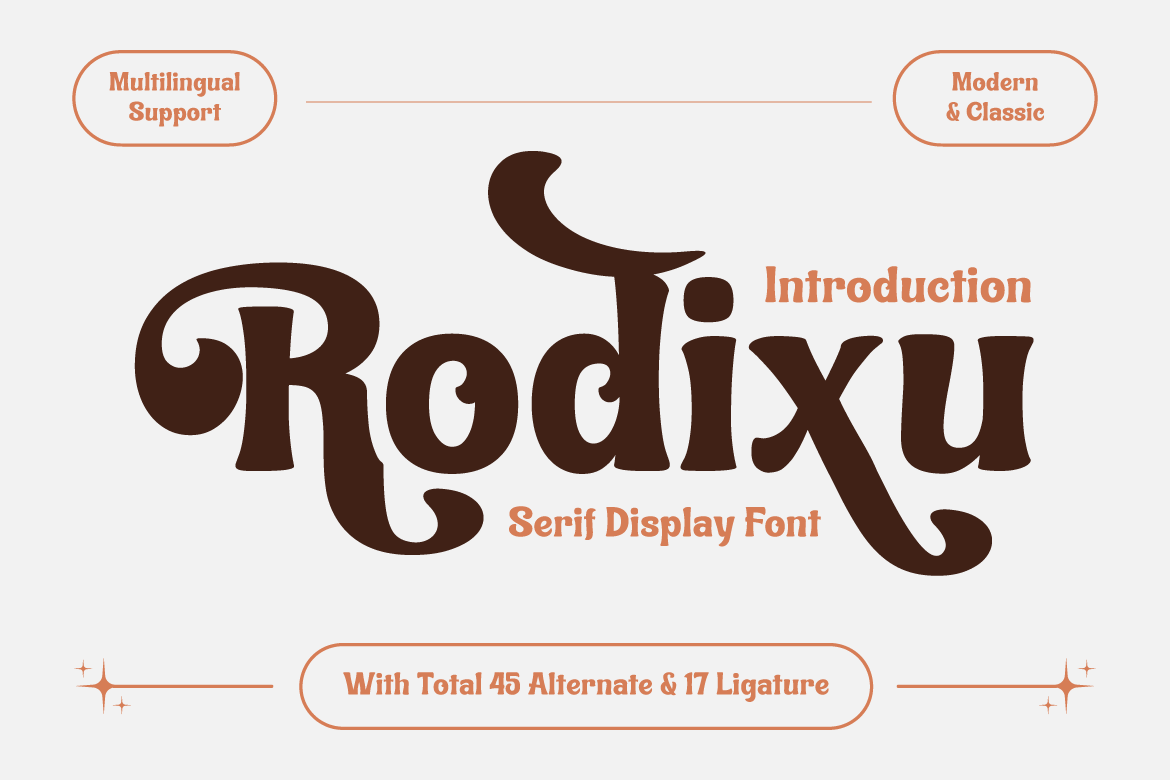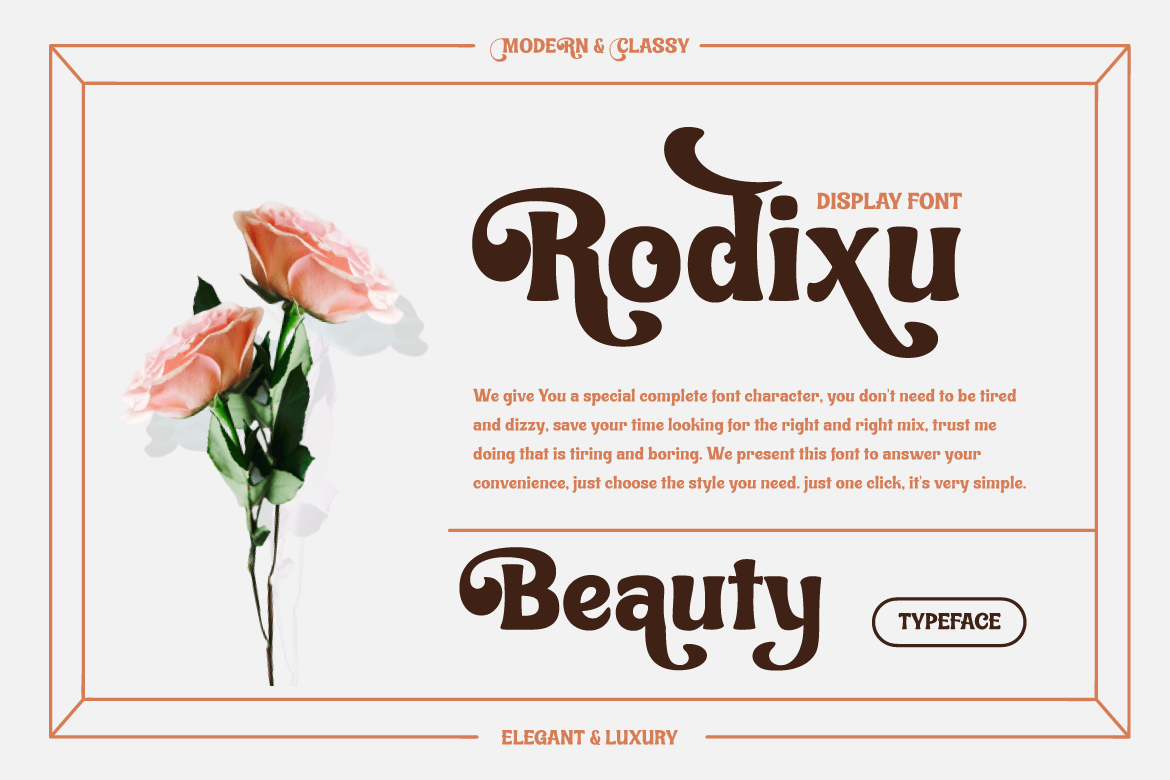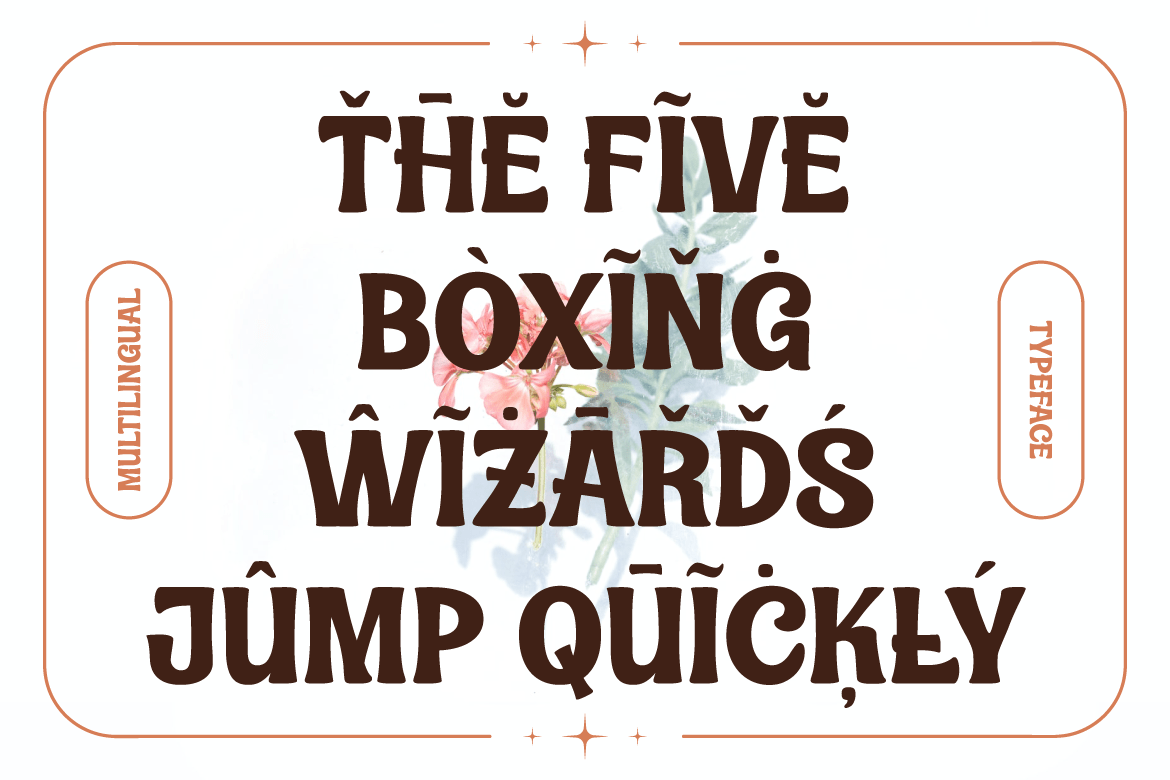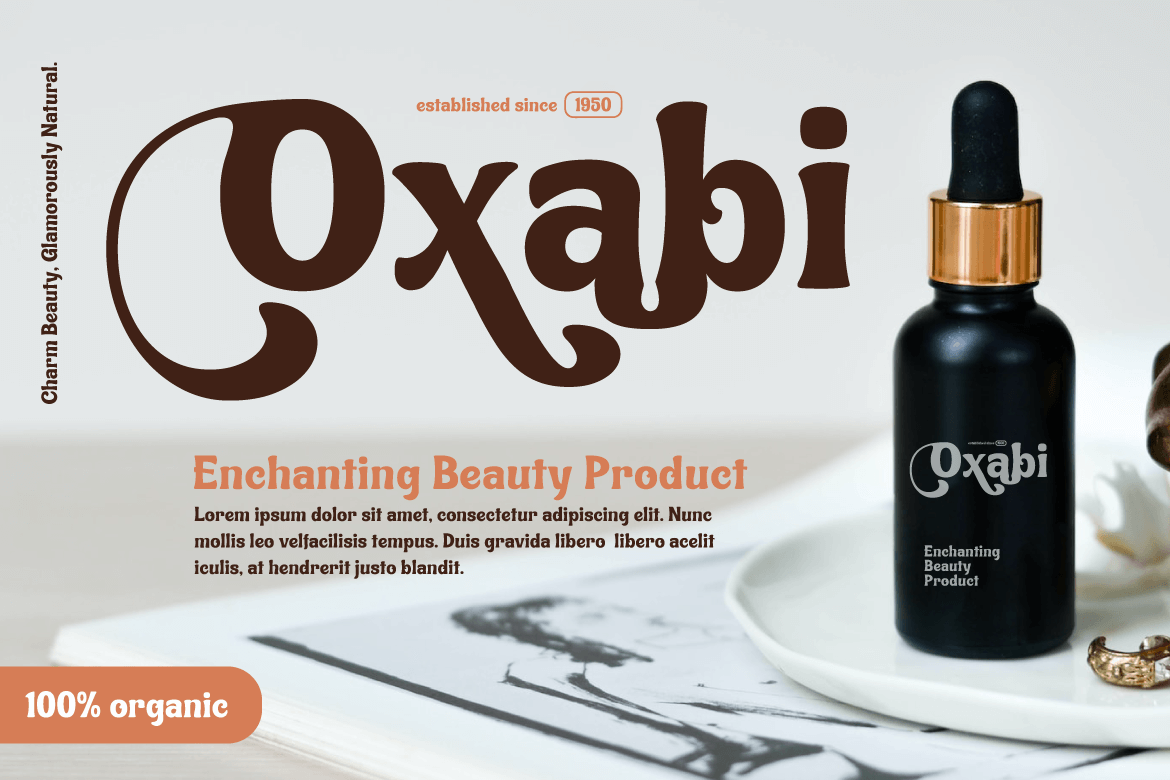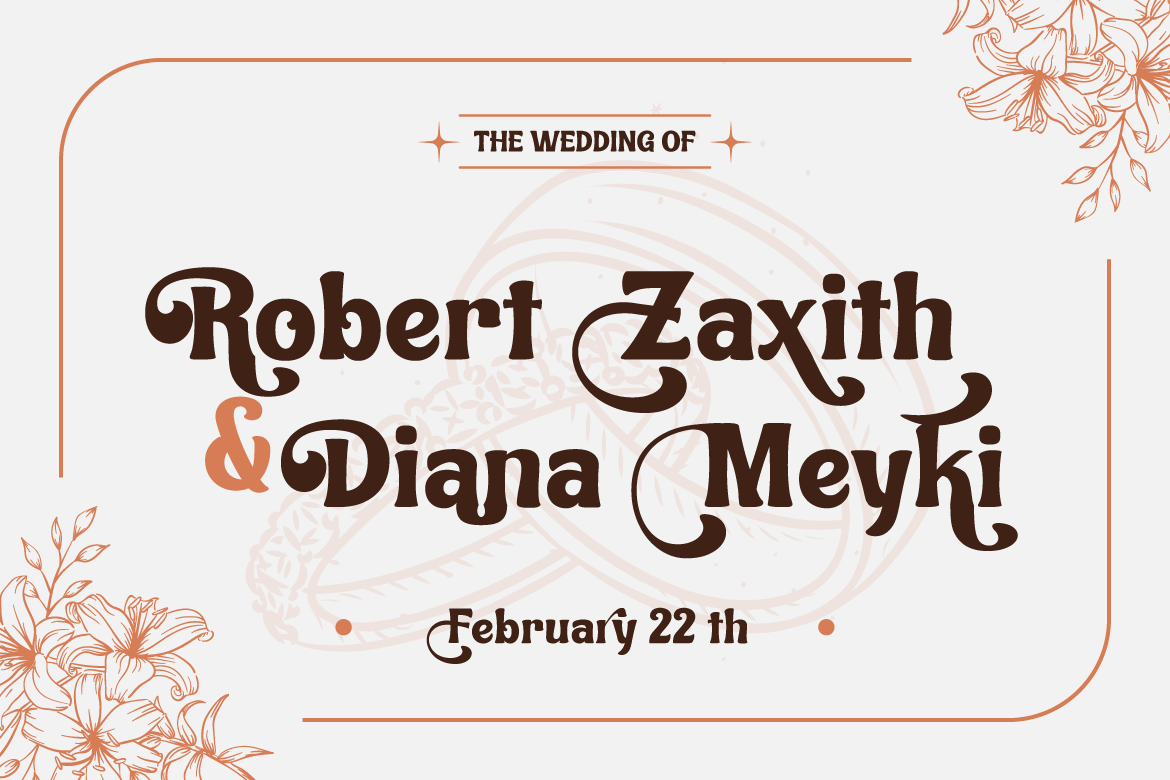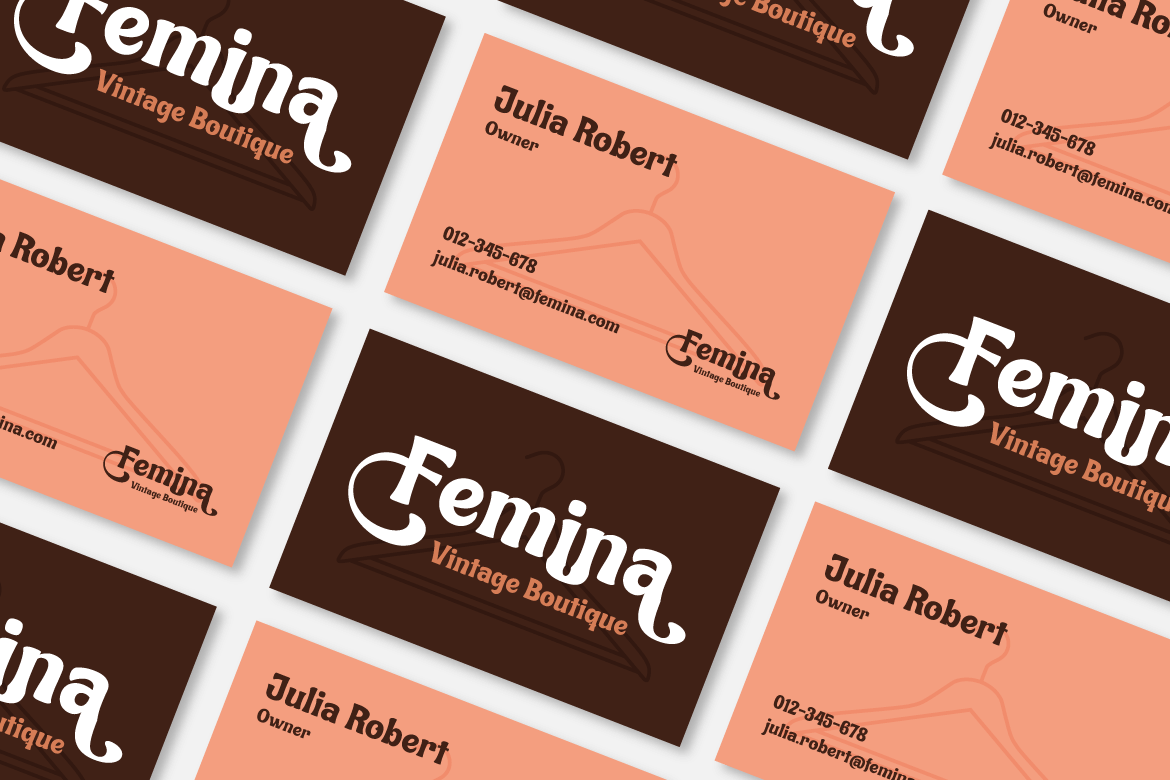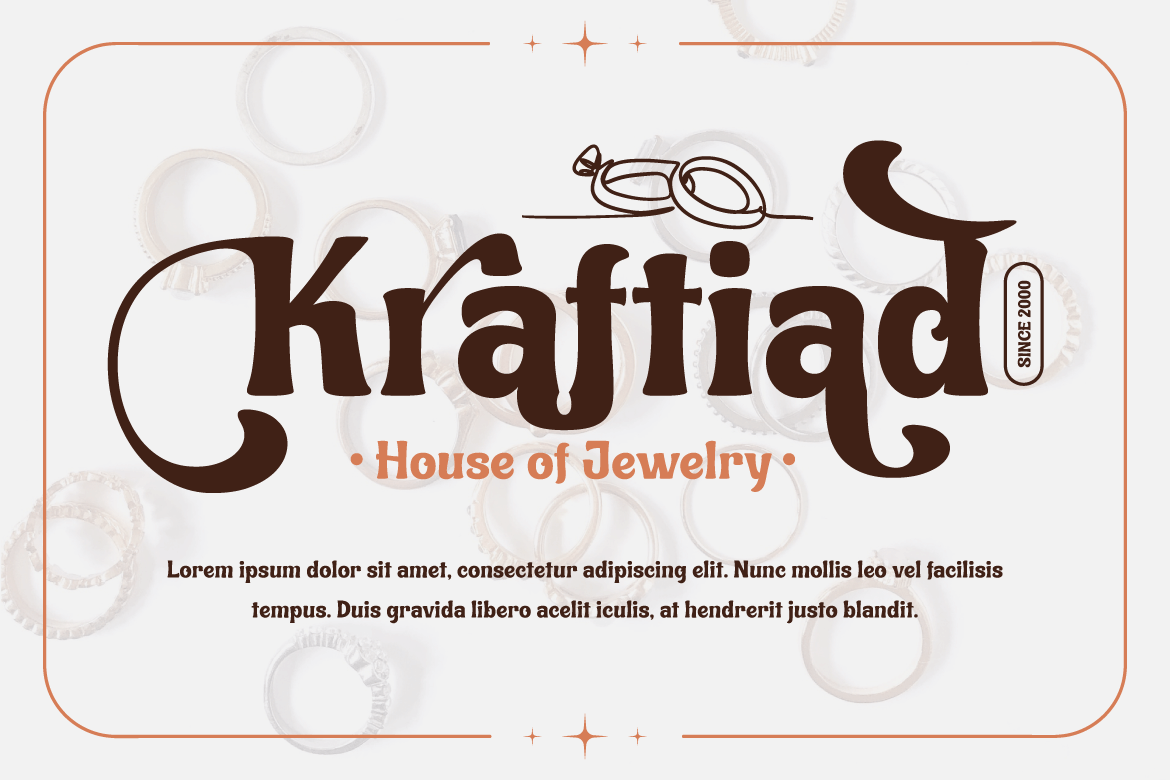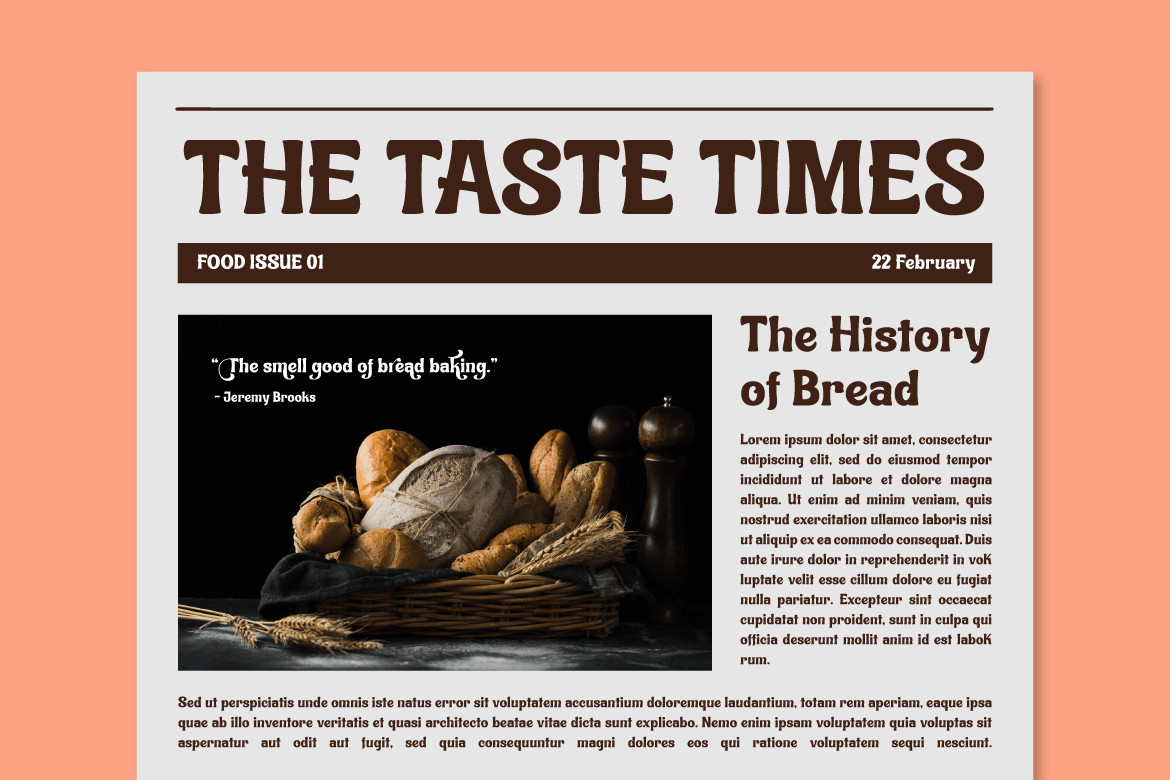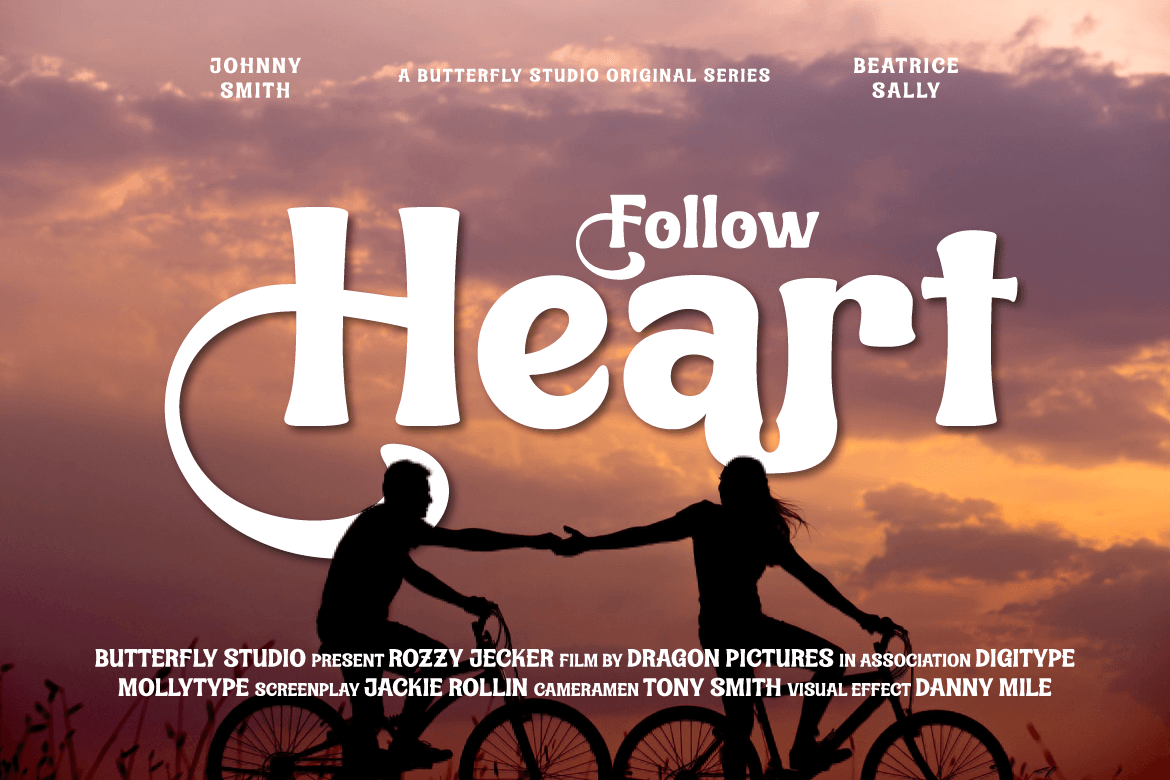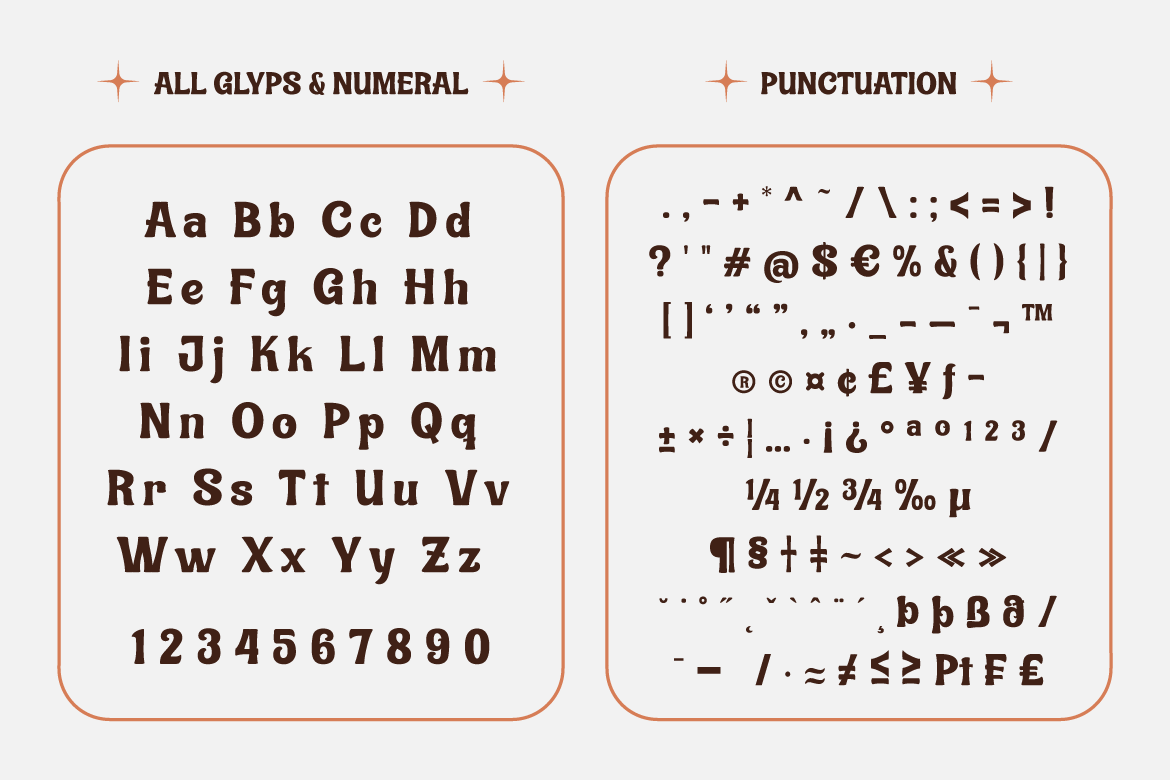
- Rodixu – Classic Modernism Font
Rodixu is a classic serif font that exudes elegance and sophistication. Each character is carefully crafted with clean lines and balanced proportions, making it perfect for any project that requires a refined touch.
Its timeless appeal makes it suitable for anything from editorial layouts to branding materials. With its stylistic alternates and ligatures, Rodixu offers a range of design possibilities and can elevate any project to the next level. Whether you’re creating a logo, website, or print materials, Rodixu is a font that will help you achieve a polished and professional look.